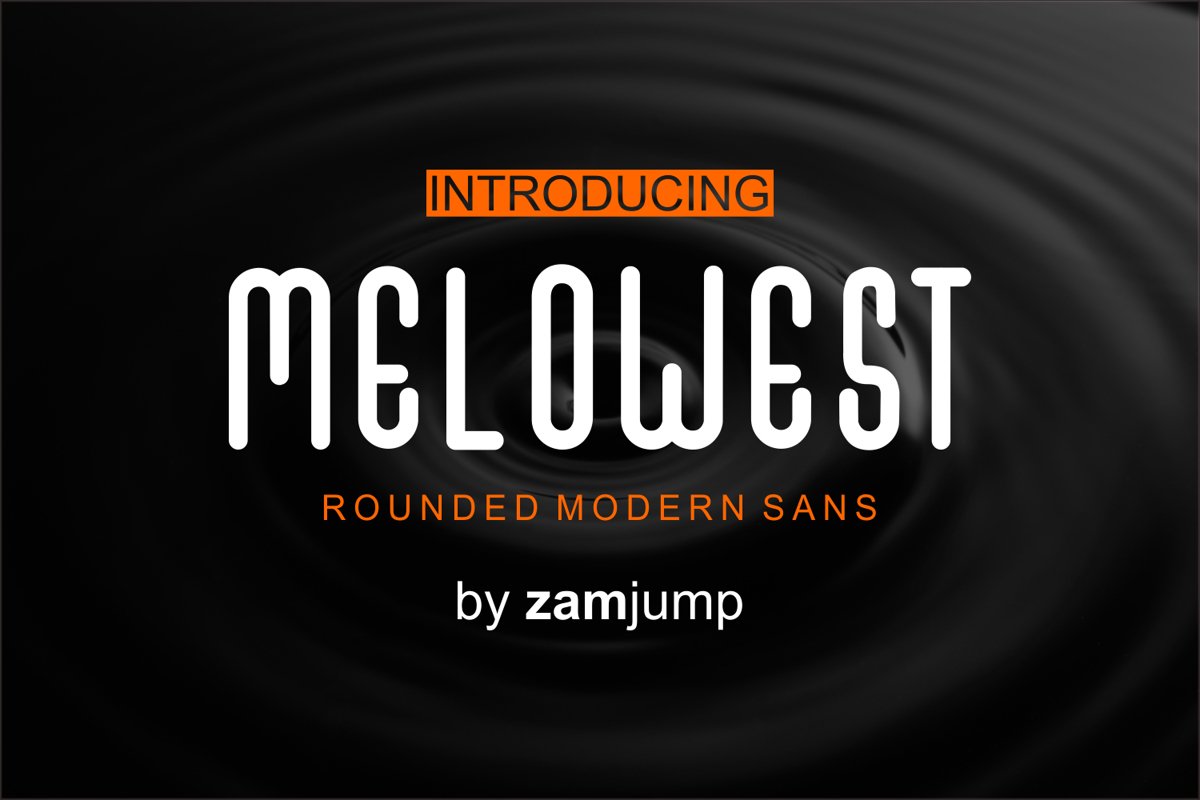
MELOWEST
melowest Italic
Melowest
MELOWEST fonts are a broad category of fonts designed for short and often large format applications, such as billboards or posters; logotypes; headline or header in a magazine or website; and book covers. Display fonts go beyond style - they are. MELOWEST with a round style gives the impression of being flexible and not rigid.